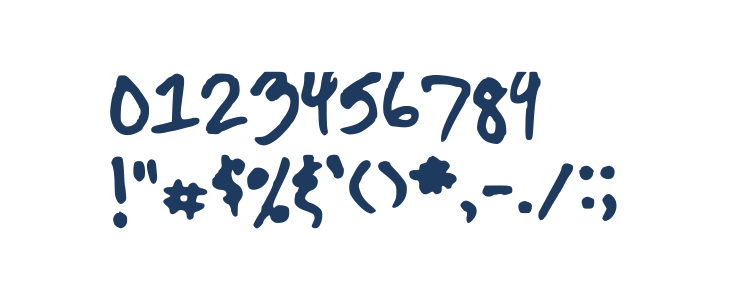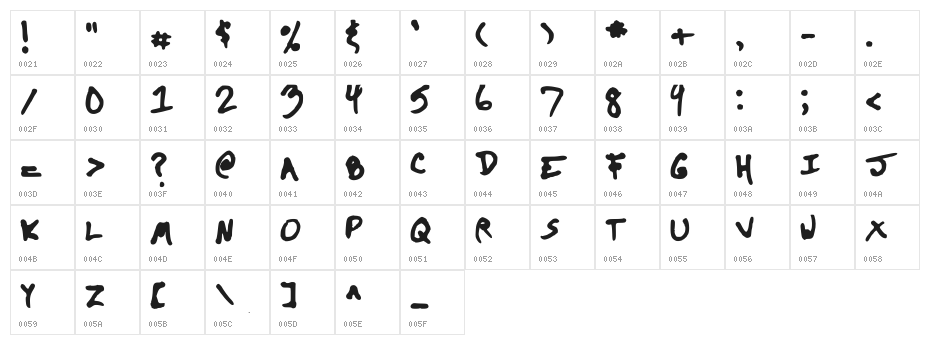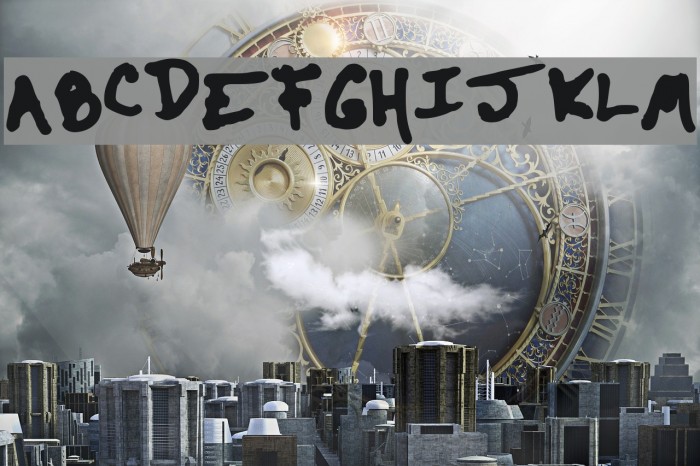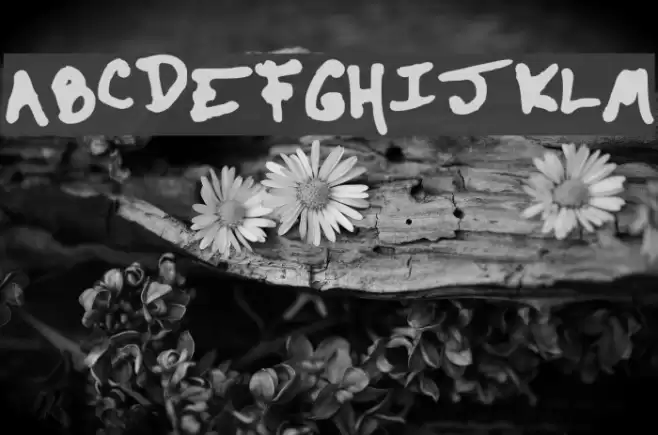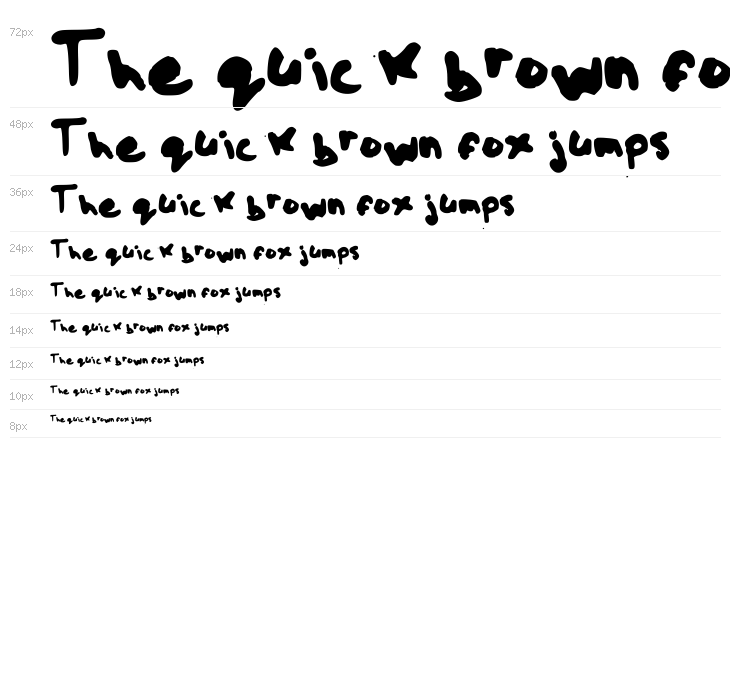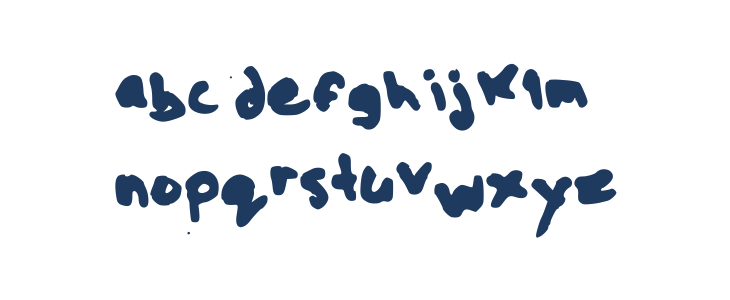
The Kool Font Font
The Kool Font Description
This font features a bold, playful style with a hand-drawn appearance. The characters are irregular and have a casual, artistic feel, reminiscent of graffiti or street art. The strokes are thick and uneven, giving it a dynamic and energetic look. The uppercase and lowercase letters maintain a consistent style, with rounded edges and a slightly exaggerated form. Numbers and special characters follow the same aesthetic, ensuring a cohesive design throughout. This font is perfect for projects that require a fun and informal touch.